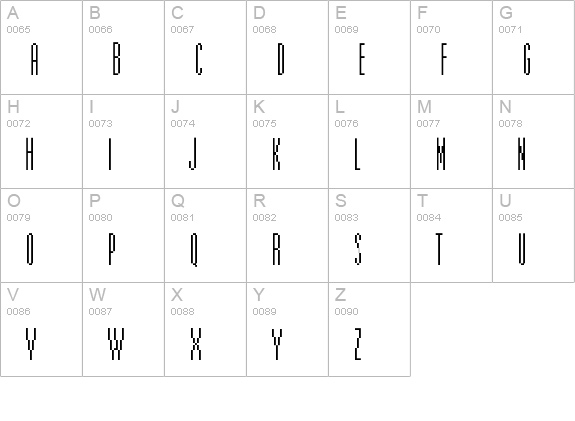
EmperorNineteen Font Details
EmperorNineteen font exudes regal elegance and modern sophistication, making it the perfect choice for projects that require a touch of grandeur. Its sleek lines and bold strokes command attention and convey a sense of power and authority. This font strikes the perfect balance between classic and contemporary, making it versatile for a wide range of design applications. EmperorNineteen font is not only visually striking but also highly readable, ensuring that your message comes across clearly and effectively. Whether used for headlines, logos, invitations, or branding materials, this font is sure to make a lasting impression. Best of all, EmperorNineteen font is available for free download at FontsMarket.com, allowing you to add this stunning typeface to your collection without breaking the bank. Don't miss out on the opportunity to elevate your designs with the timeless appeal of EmperorNineteen font.